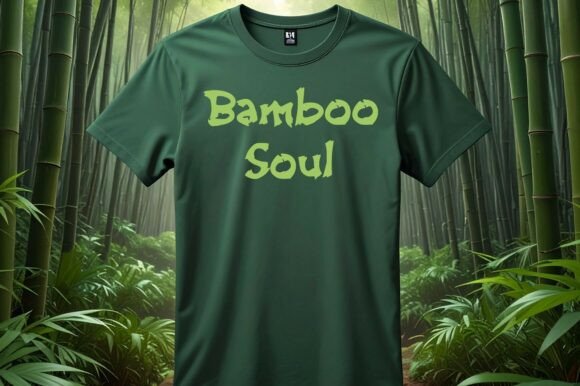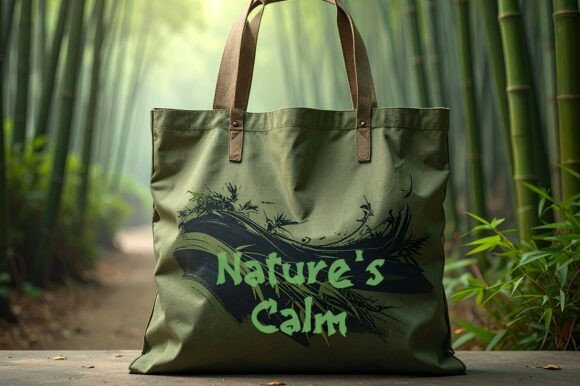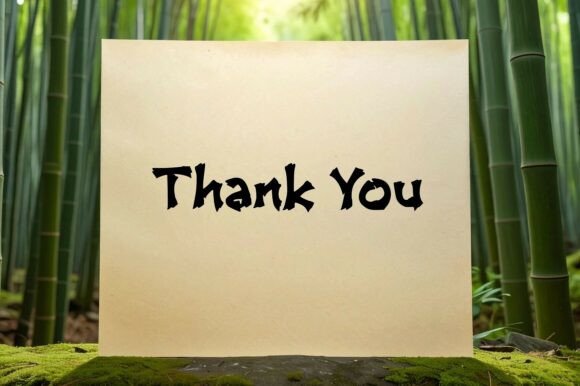
Introduction to Bamboo Grove Font
Bamboo Grove font is a distinctive and organic display typeface inspired by the natural beauty and structural aesthetic of bamboo.
This Bamboo Grove typeface features tall, narrow letterforms with a slightly irregular, brush-stroke texture that perfectly captures the essence of nature The characters typically showcase unique, elongated strokes that mimic the segmented structure of bamboo stalks, often with a subtly rough or hand-carved appearance.